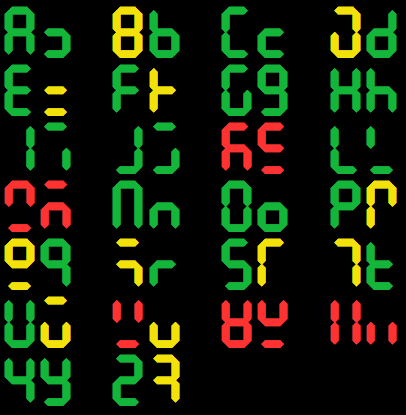
• A font face inspired by seven-segment LCD digits. To achieve non-ambiguous Latin glyphs in upper and lower case, some unusual choices have been made. Beta (at best) version status for Basic Latin, alpha status for Greek and Cyrillic.
It is a very nice font i LOVE IT i just wish the F and E Lower Case would look more like an f and en e i could update this font showing u what i mean
I am surprised @qarismarvel did not mark the lowercase 'A' and 'L' in yellow.
I have left-aligned both uppercase and lowercase 'I' now.
the lowcase s is a long s